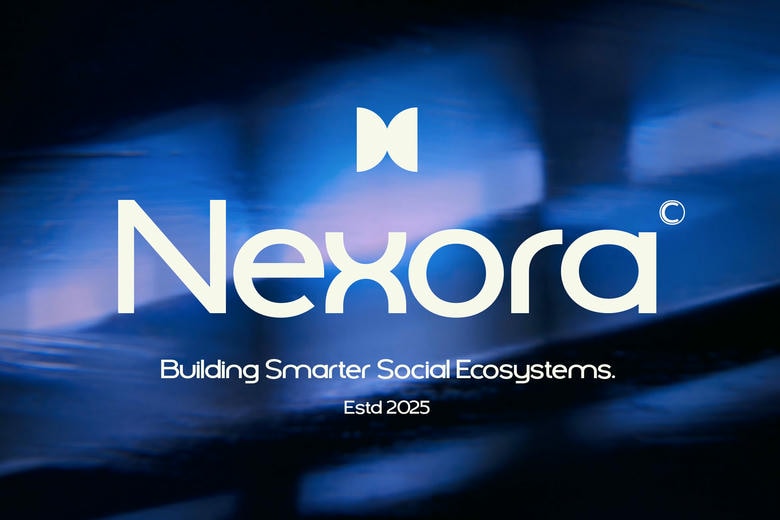
Nexora Font
Nexora is a modernized and sleek sans serif logo typeface. Characterized by clean lines, solid structure, and unique typography. Nexora is designed to be used in logos, brand marks, headlines, packaging, and creative display, and it is very clear without being too weak.
Nexora Sans Serif Font